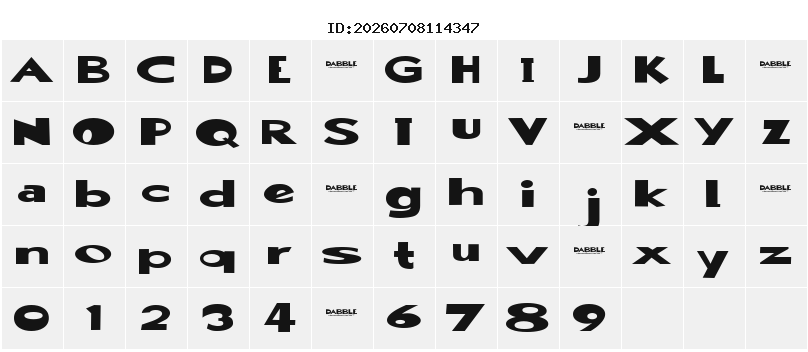
Dabble(eval) Preview
• Font Name: Dabble(eval)
• Full Font Name: Dabble(eval)
About Dabble(eval).ttf
Dabble(eval).ttf is a modern, elegant sans-serif font designed for ultimate readability and visual harmony. Perfect for branding, headlines, web design, and print materials.